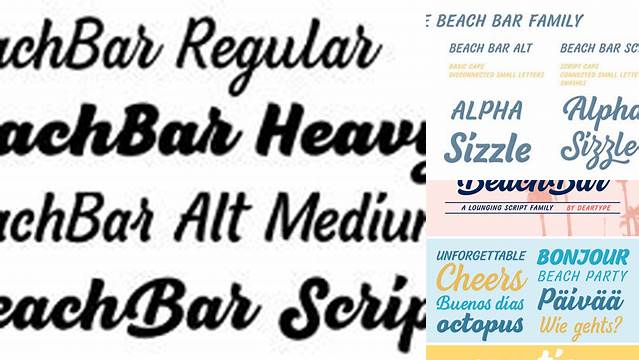
Are you on the hunt for the perfect beachbar script black font to elevate your design projects? Well, you've landed in the right spot! In this comprehensive guide, we'll dive deep into the world of this stylish font, exploring its unique characteristics, diverse applications, and, most importantly, where you can snag it for free. So, grab your virtual surfboard and let's ride the wave of typography!
What Makes Beachbar Script Black Font So Special?
Beachbar Script Black font is more than just a typeface; it's a statement. Its bold, flowing lines evoke a sense of carefree summer days and vibrant beachside bars. The thick strokes give it a strong presence, making it ideal for headlines, logos, and eye-catching designs. But what truly sets it apart? Let's break it down:
- Boldness: The black weight adds a punch, ensuring your text commands attention.
- Script Style: The cursive design brings a touch of elegance and personality, perfect for projects needing a human touch.
- Versatility: Despite its strong personality, beachbar script black font can adapt to various design styles, from vintage to modern.
Think about its applications. Imagine a craft brewery using it on their labels to convey a sense of rugged authenticity, or a surf shop emblazoning it across their storefront to capture the laid-back vibe of the beach. This font is not just about aesthetics; it's about telling a story and connecting with your audience on an emotional level. Whether you're designing posters for a summer festival, creating social media graphics for a travel agency, or branding a new line of beachwear, beachbar script black font can add that extra layer of charm and memorability.
Moreover, the font's readability is surprisingly good, considering its script nature. The letterforms are well-defined, ensuring that your message remains clear and legible even at smaller sizes. This makes it a practical choice for a wide range of applications, from print to digital media. The balanced contrast between thick and thin strokes contributes to its overall visual appeal, making it a joy to behold and work with.
Pro Tips for Using Beachbar Script Black Font
- Pairing is Key: Beachbar Script Black font works best when paired with a simple, clean sans-serif font. This creates a visual contrast that enhances readability and adds a touch of sophistication.
- Kerning Matters: Pay close attention to kerning (the space between letters) to ensure a balanced and professional look. Adjust the kerning manually if necessary, especially in headlines and logos.
- Color Contrast: Use beachbar script black font on a light background or vice versa to maximize contrast and readability. Avoid using similar colors, as this can make the text difficult to read.
- Size Considerations: While beachbar script black font is bold, it's not always suitable for small body text. Use it sparingly for headings, subheadings, and callouts to draw attention to key information.
Let's delve deeper into these tips. Font pairing is an art form in itself. The goal is to find a font that complements beachbar script black font without competing with it. A classic pairing would be with a font like Open Sans or Montserrat. These sans-serif fonts are clean, modern, and highly readable, providing a grounding effect that allows the script font to shine. Experiment with different font weights and sizes to find the perfect balance. Remember, the goal is to create a harmonious visual hierarchy that guides the reader's eye.
In conclusion, beachbar script black font is a fantastic addition to any designer's toolkit. Its bold, script style evokes a sense of fun and relaxation, making it perfect for a wide range of projects. By following the tips in this guide, you can find it for free and use it effectively to create stunning designs that capture the essence of summer. So go ahead, unleash your creativity and let beachbar script black font bring your ideas to life!